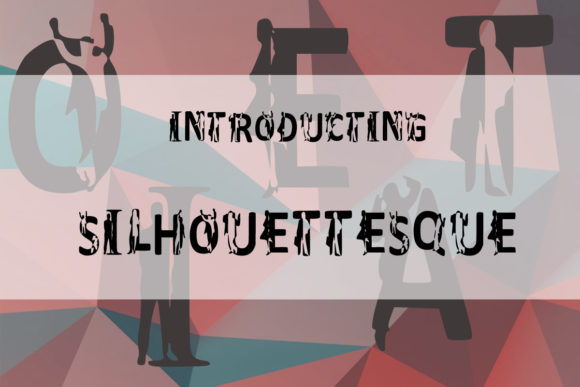
Immerse yourself in the world of typography with Silhouettesque Font, a captivating decorative font that will transform your online book into a masterpiece. Unleash your creativity as you craft eye-catching book covers, captivating banners, and stunning websites that leave a lasting impression.
Silhouettesque Font is not merely a collection of letters; it's an invitation to express your imagination. Its bold strokes and enchanting curves dance across the page, creating an unforgettable visual experience. Let your words take center stage as they are adorned with the elegance and sophistication of this extraordinary font.
With Silhouettesque Font, your online book will transcend the ordinary and become an enchanting journey for your readers. Its versatility knows no bounds, making it the perfect choice for a wide range of genres and styles. Whether you're weaving a tale of mystery, adventure, or romance, Silhouettesque Font will enhance your words, drawing your readers deeper into your captivating world.
Don't settle for ordinary fonts that fade into the background. Choose Silhouettesque Font and elevate your online book to new heights. Let your imagination soar as you create a captivating typographic experience that will leave your readers spellbound.